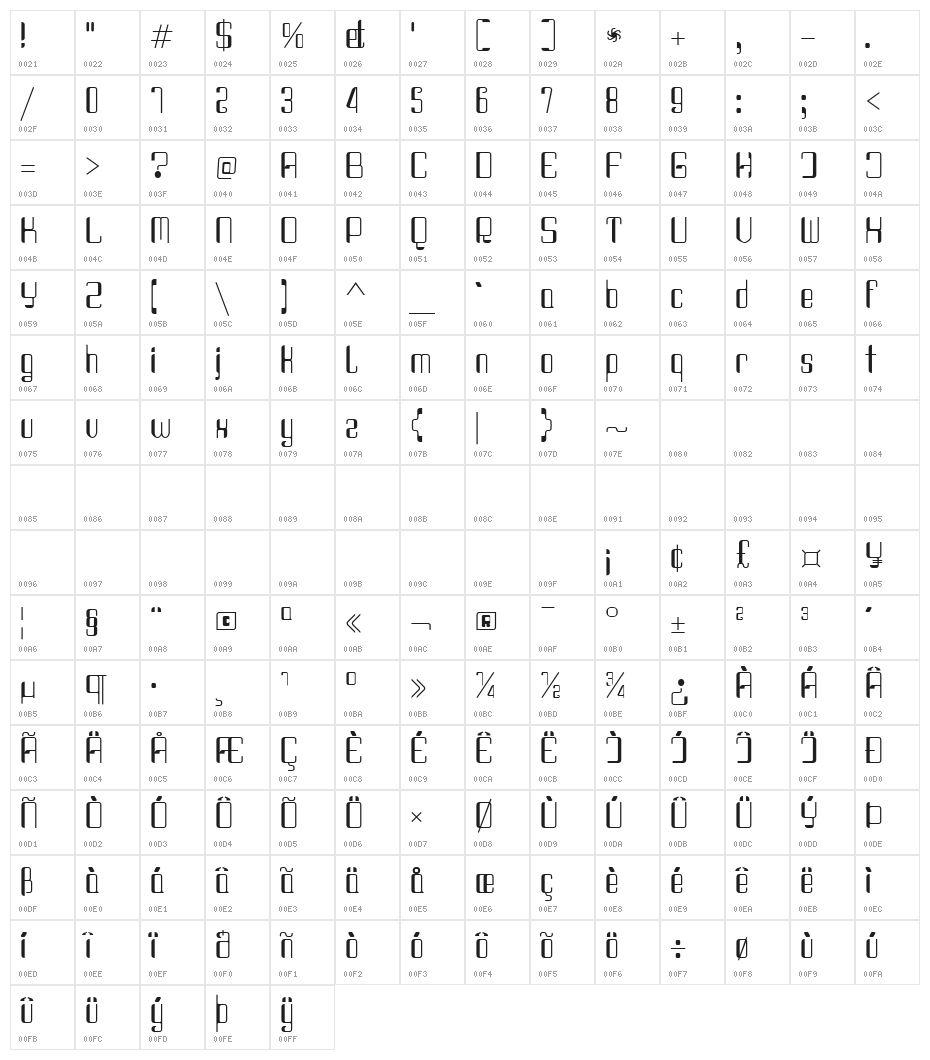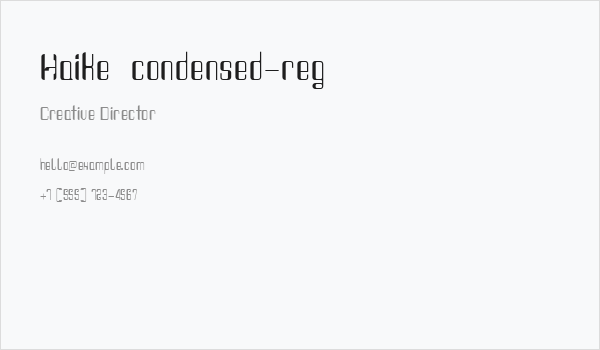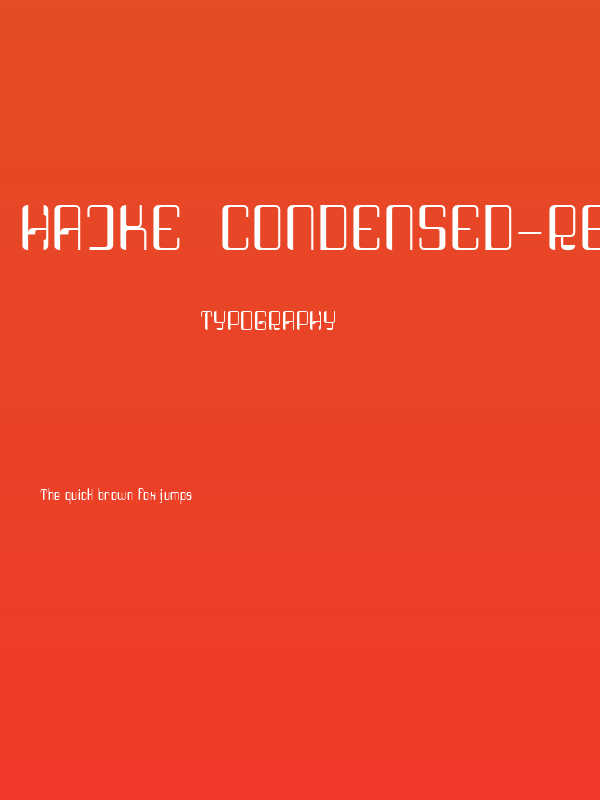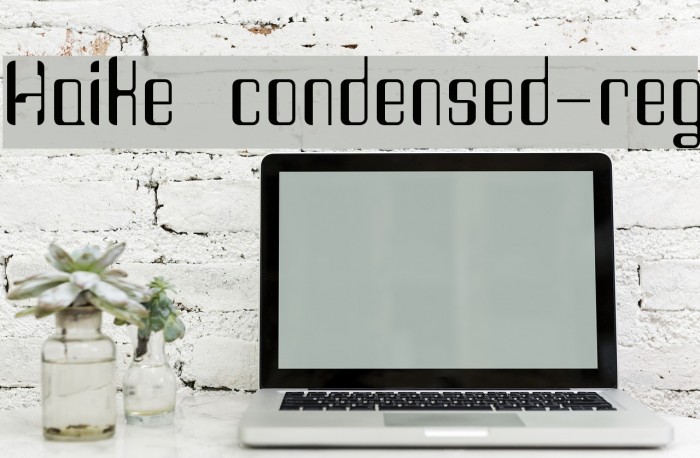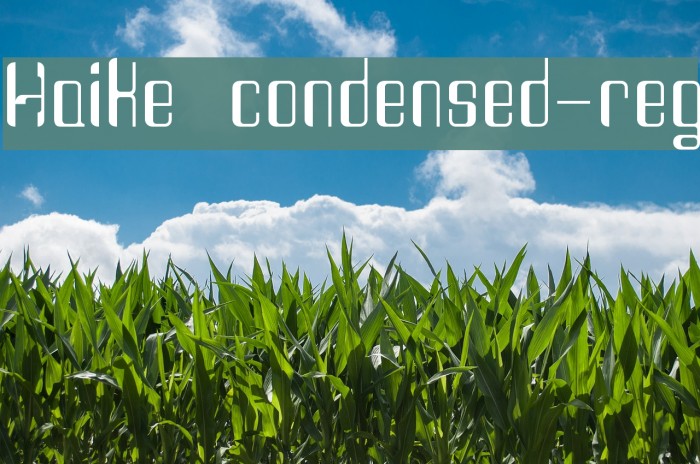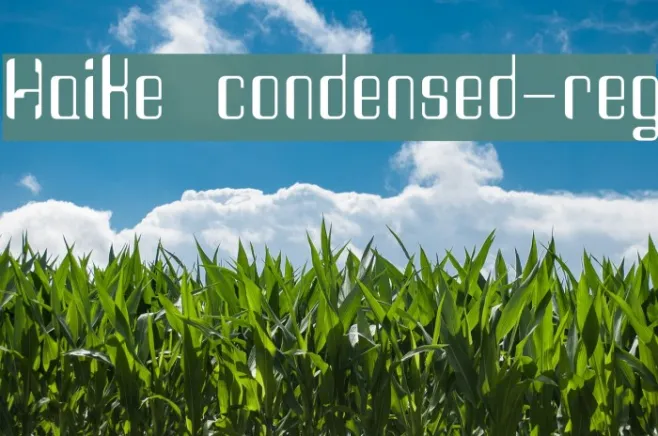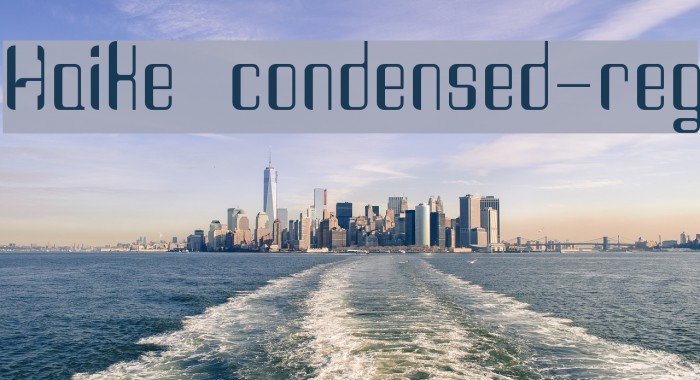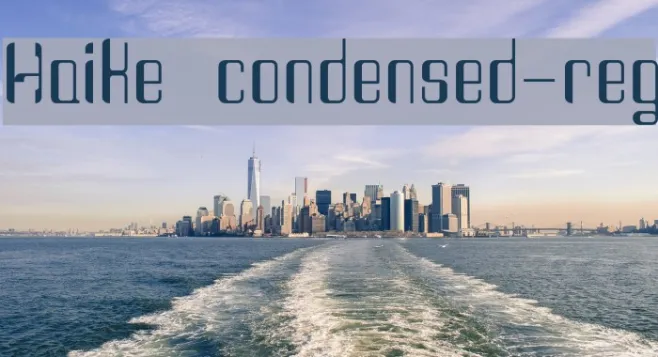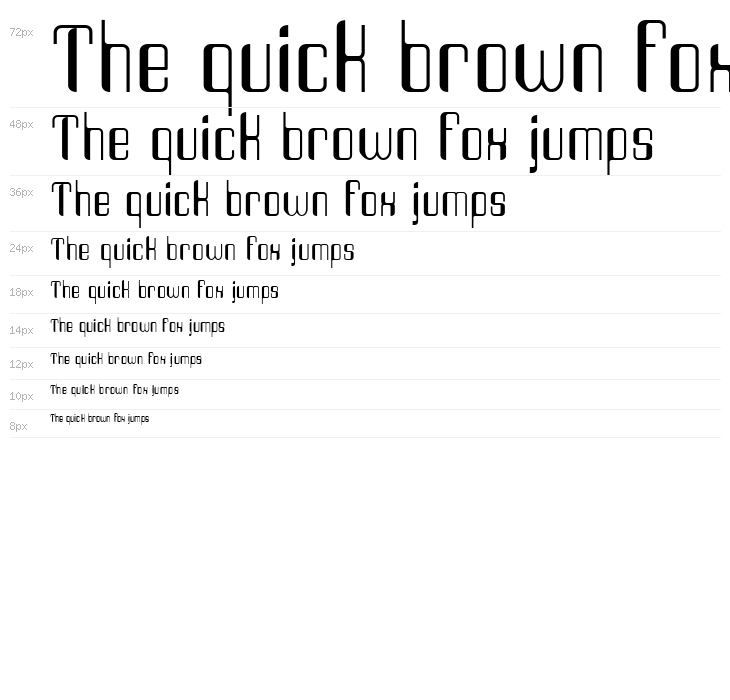
Haike condensed-reg Font
Haike condensed-reg Description
This font features a modern, geometric design with a condensed structure. The characters are sleek and streamlined, with a consistent stroke width that gives it a uniform appearance. The uppercase letters have a distinct, angular style, while the lowercase letters maintain a similar geometric form, enhancing readability. The numerals and special characters follow the same design principles, ensuring a cohesive look across all glyphs. This font's condensed nature makes it ideal for space-saving applications without sacrificing legibility.